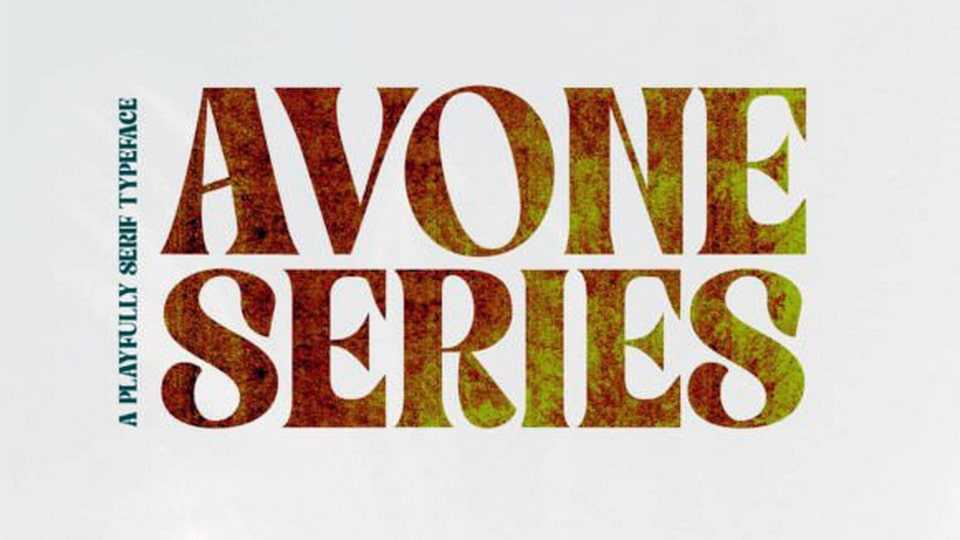
Download Avone Series & Italic font, an elegant vintage typeface, featuring a clean and letterpress style, regular and original with added ligatures and symbols.